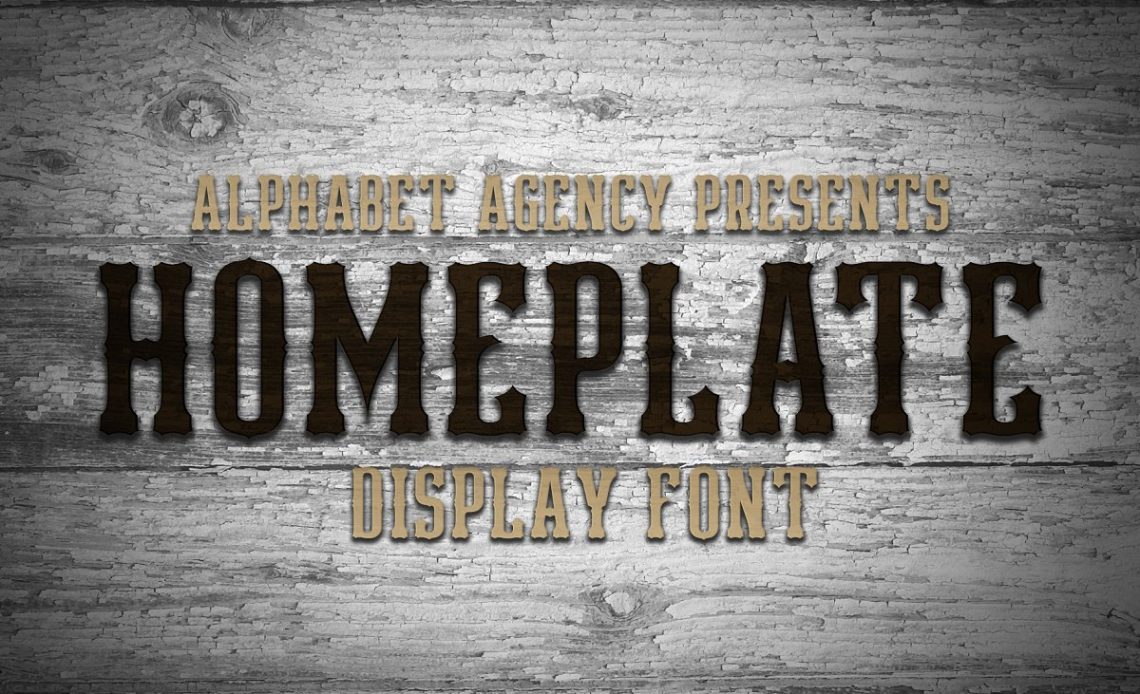
Looking for the perfect font duo for your web applications? Look no further than the Homeplate Font Duo, created by the talented Jon Swinn. This serif font family is the ideal choice for those looking to add a touch of sophistication and elegance to their projects.
The Homeplate Font Duo features two complementary fonts: Homeplate and Homeplate Rough. The former is perfect for headlines and titles, with its clean lines and classic look. Meanwhile, the latter is ideal for adding texture and depth to your designs, giving them a unique and eye-catching edge.
What sets the Homeplate Font Duo apart is its versatility. This font is perfect for a wide range of applications, from web design and branding to invitations and social media graphics. With its timeless elegance, it's sure to elevate any project.